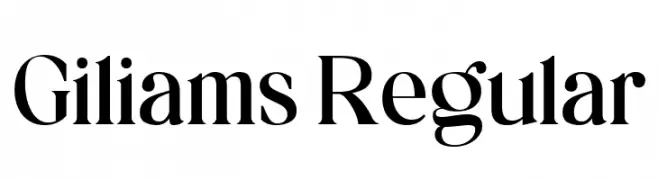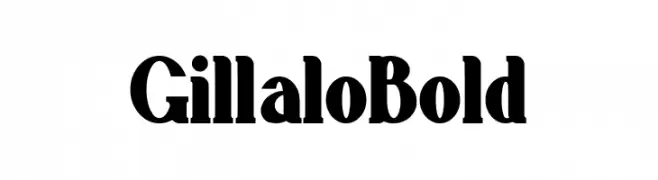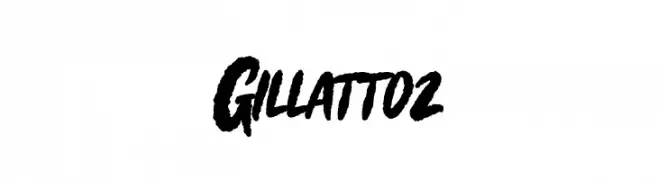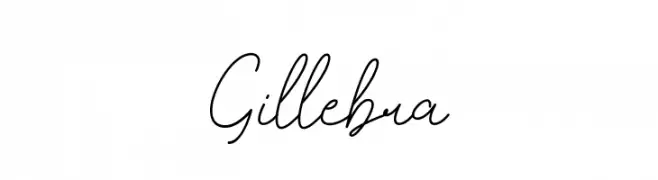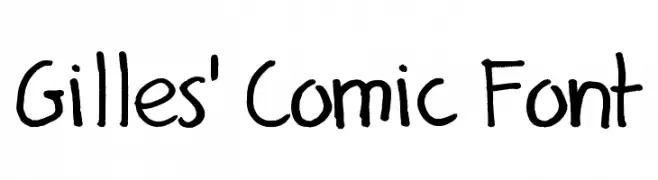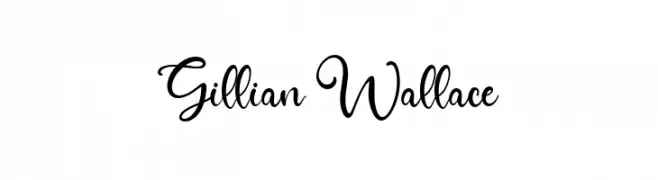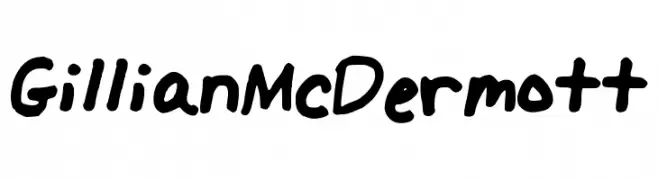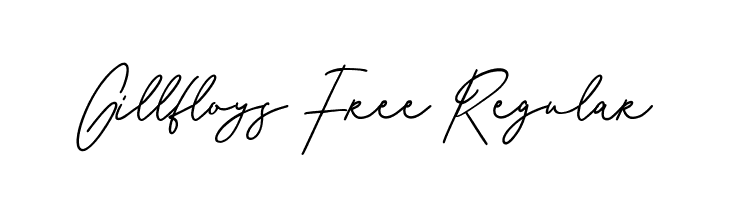
A classic serif font with modern elegance and refined letterforms.
An organic, tree bark-inspired font with intricate, hand-carved details.
A bold, elegant font with strong strokes and a commanding presence.
A bold, hand-painted style font with dynamic, expressive strokes.
An elegant, flowing script font with smooth, cursive letterforms.
A playful, hand-drawn comic style font with a casual and friendly appearance.
A dynamic and flowing script font with elegant, elongated letterforms.
An elegant script font with flowing, interconnected letters and decorative flourishes.
Elegant cursive font with interconnected characters and stylish flourishes.